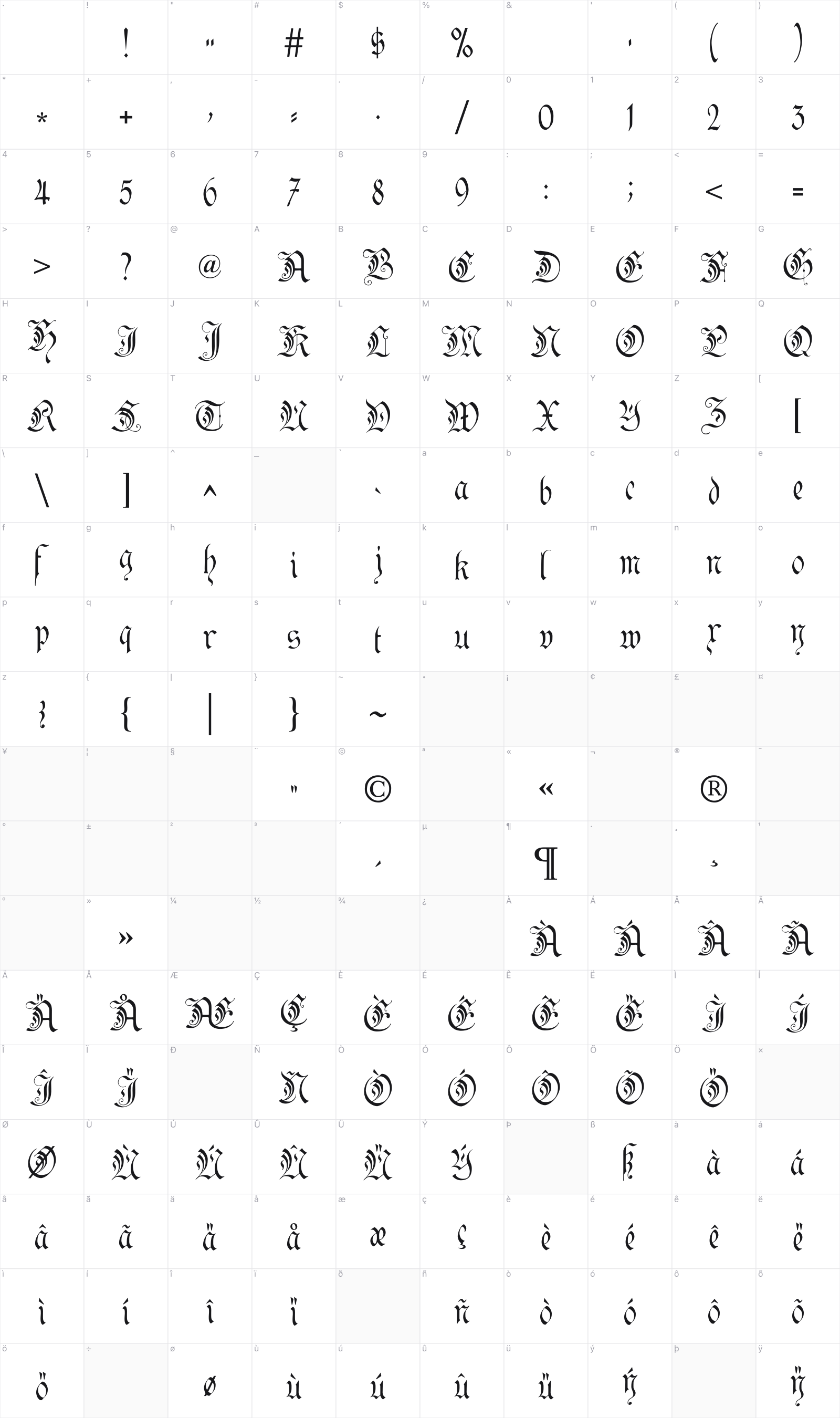
Kanzler
Kanzler is a traditional Fraktur blackletter from Peter Wiegel that draws on the ornate German calligraphic tradition, with carefully formed letterforms that feel rooted in historical manuscript and print culture. The strokes are detailed and decorative without becoming illegible, striking a balance between authentic gothic density and clean execution. Best used for headlines, certificates, beer labels, or anything that calls for old-world German typography with real craft behind it.